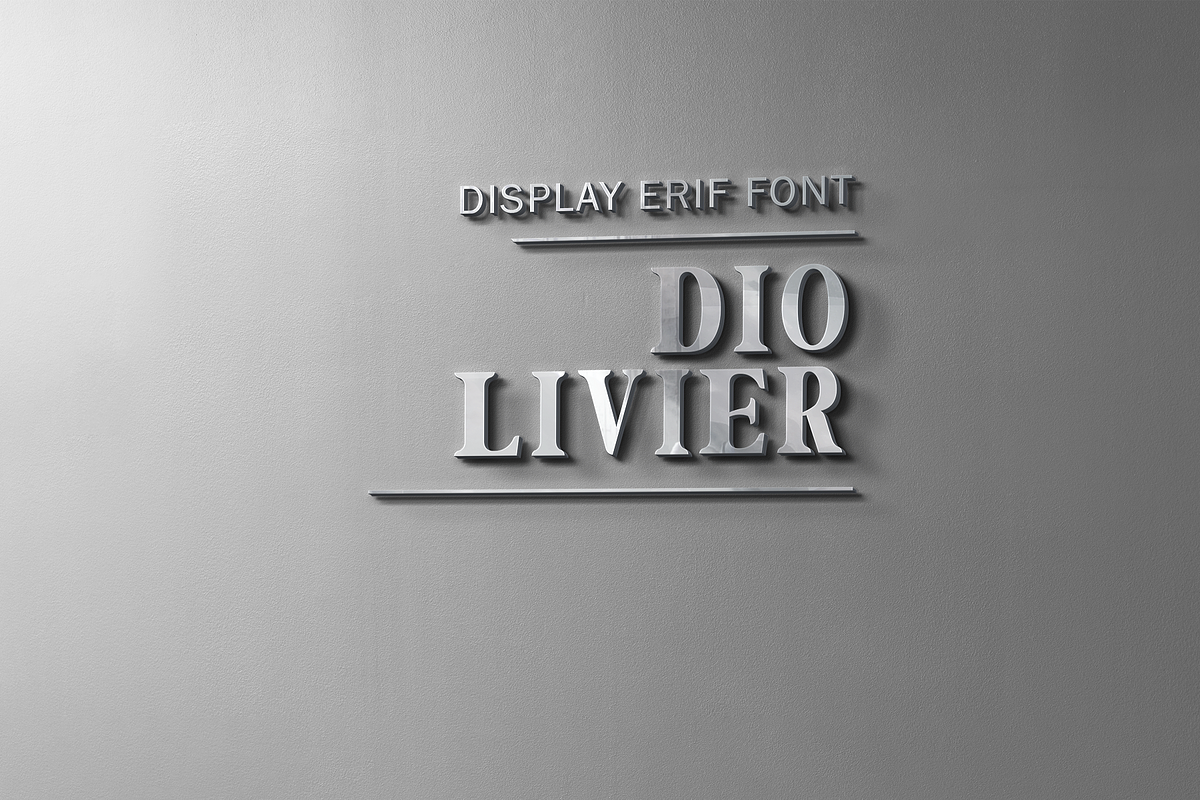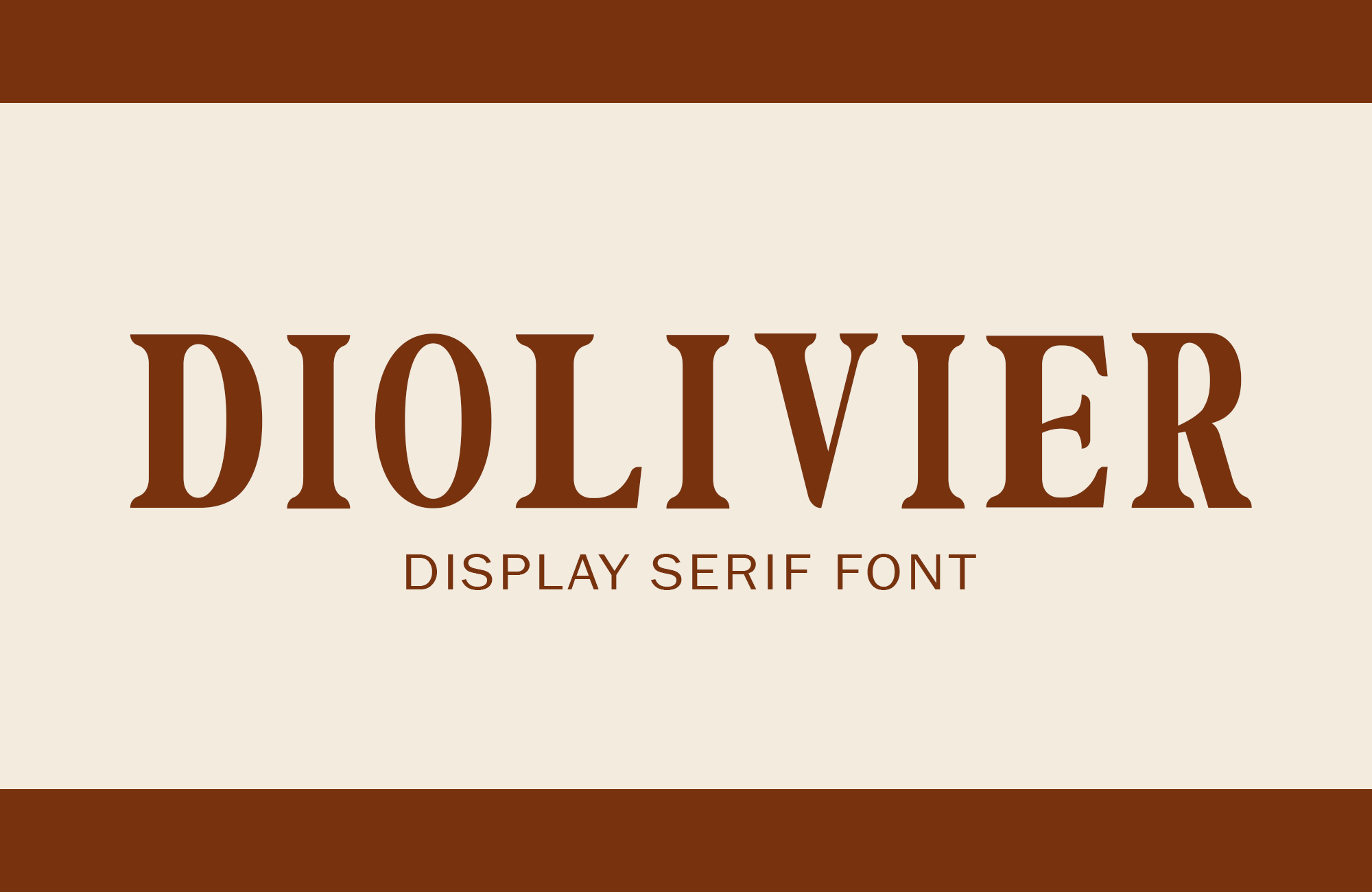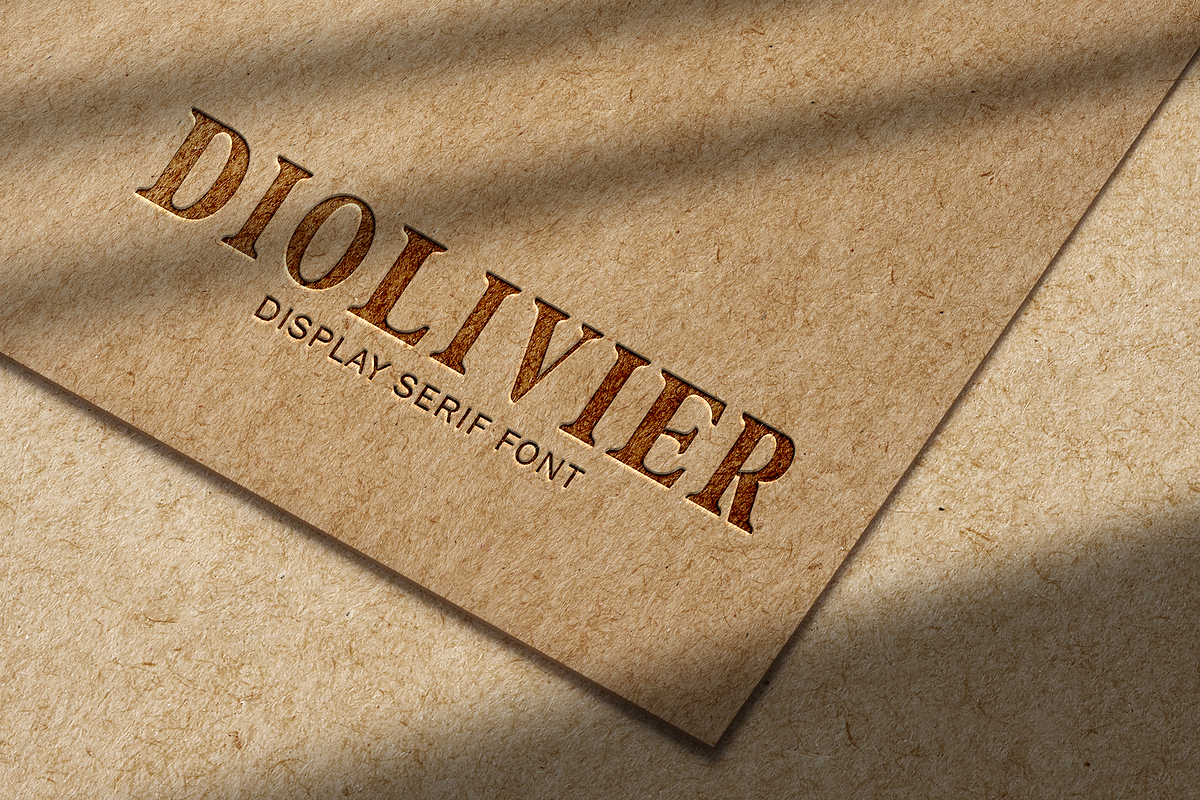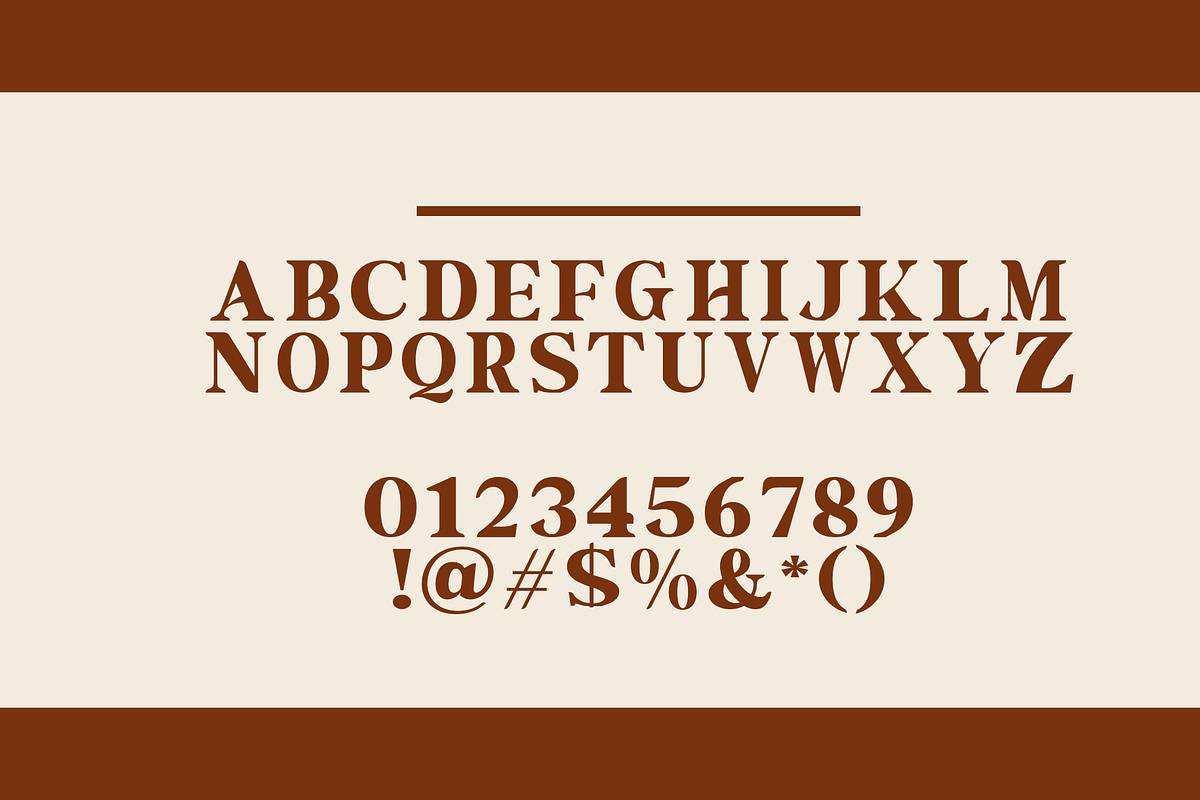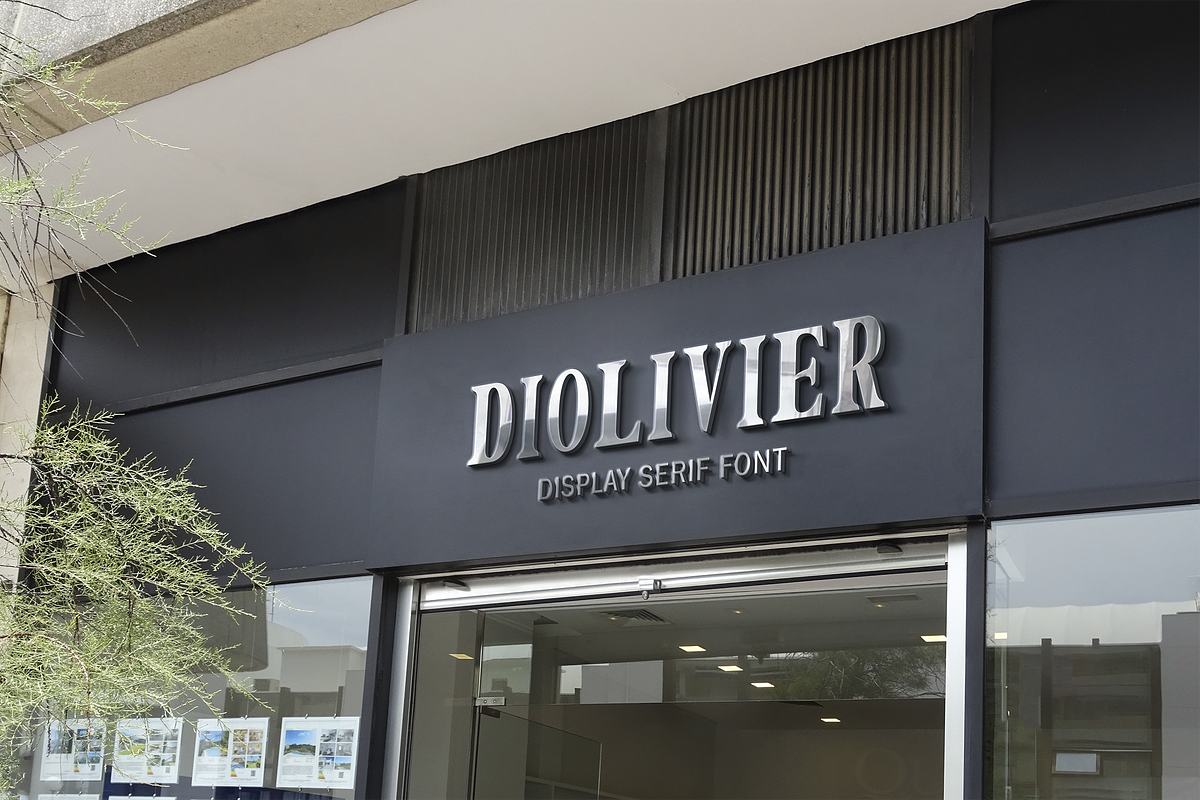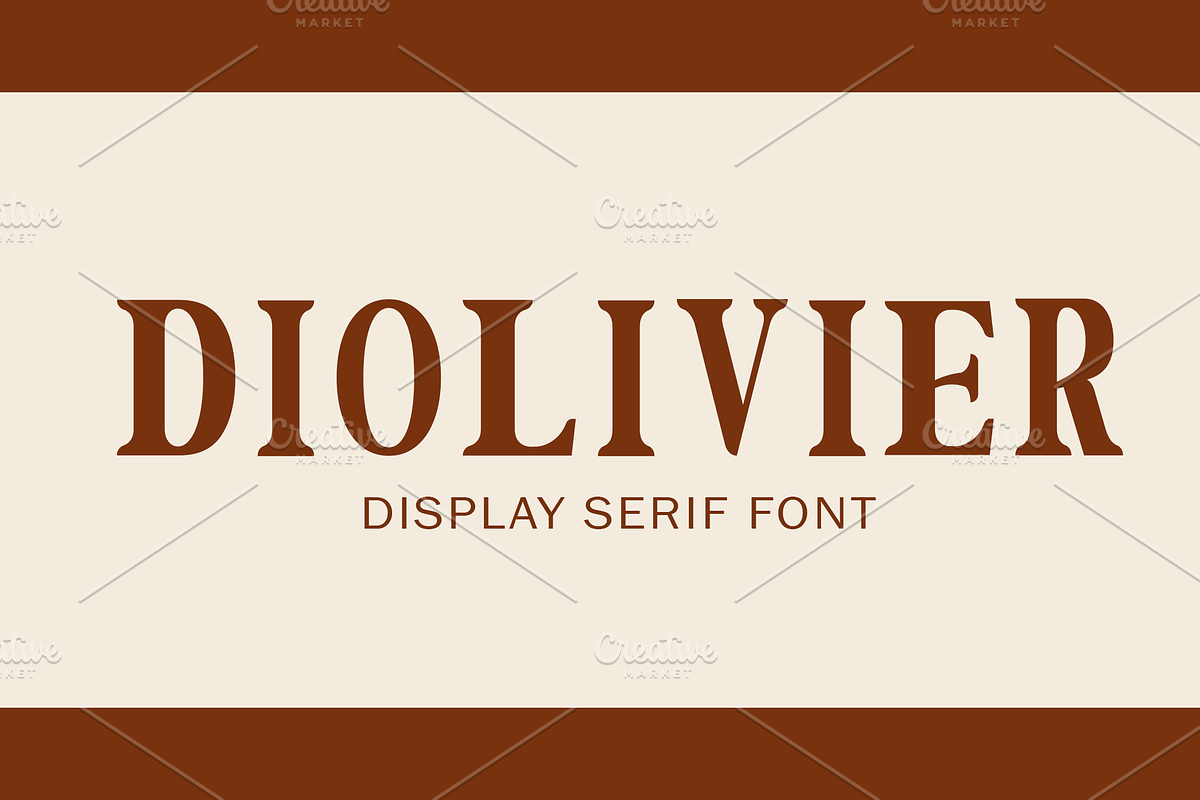
Diolivier Display Serif Font
Introducing our Diolivier Display Serif Font Collection, meticulously crafted to add elegance and refinement to your design projects. Each font in our collection exudes timeless charm and sophistication, perfect for headlines, logos, and editorial layouts. Elevate your typography game and create visually stunning designs with our Display Serif Font Collection.